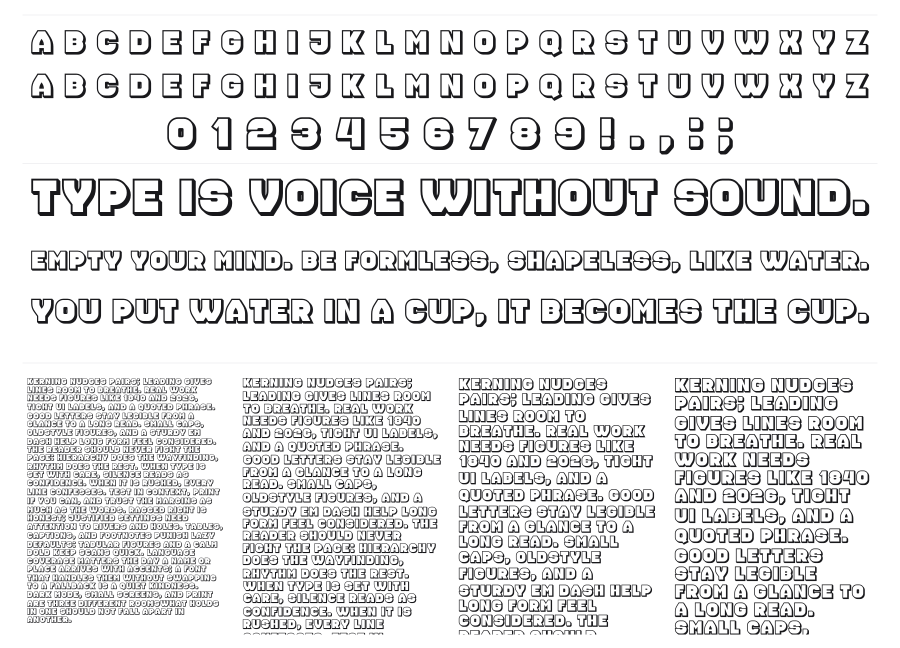
Nonsense
Nonsense is a chunky rounded sans-serif with a bold outline and deep drop shadow that lands squarely in retro arcade and comic-book territory. The near-zero stroke contrast and rounded corners give every character a friendly, almost inflatable weight. It brings immediate visual impact at large sizes.